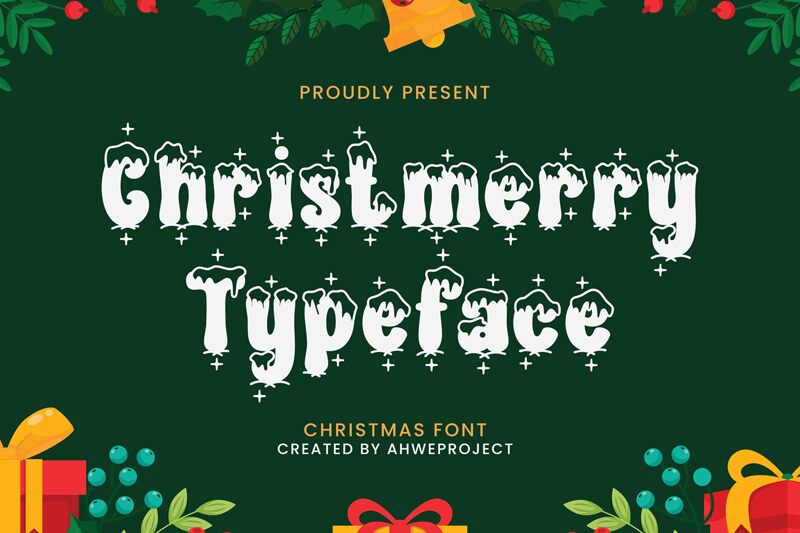
Christmerry font by Ahweproject captures the joyful spirit of the Christmas holiday in a single font. This free decorative typeface features a playful aesthetic twisted with some elegant Christmas-themed elements which make it ideal for the festive season. This is one of those fonts with bold high-contrast lettering whose distinctive type characters will not go unnoticed.